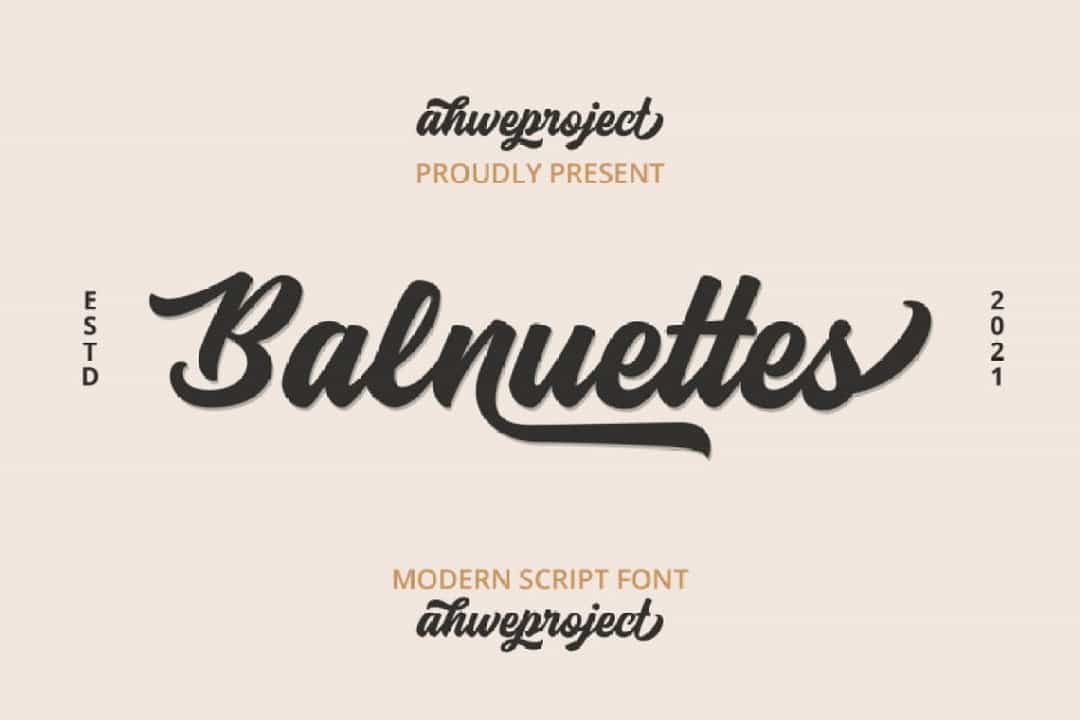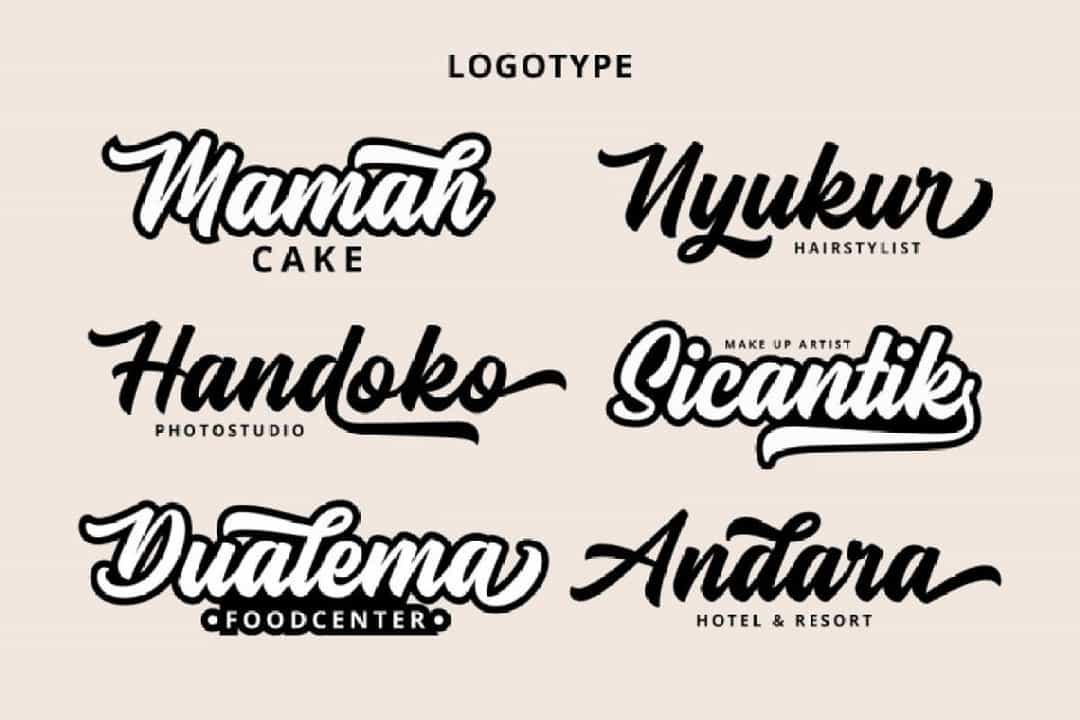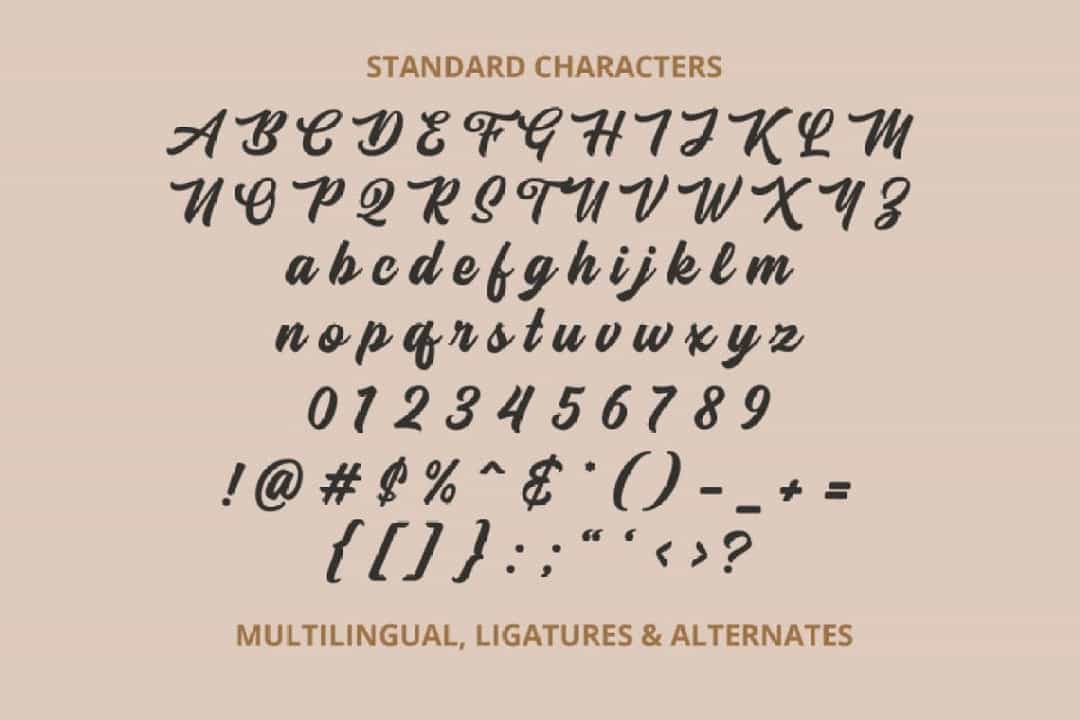
Balnuettes is an exquisite soft script typeface, exuding sophistication and elegance. This font was created for people seeking a classy and modern aesthetic in their designs, while being encoded with PUA for easy accessing all its beautiful glyphs and ligatures!